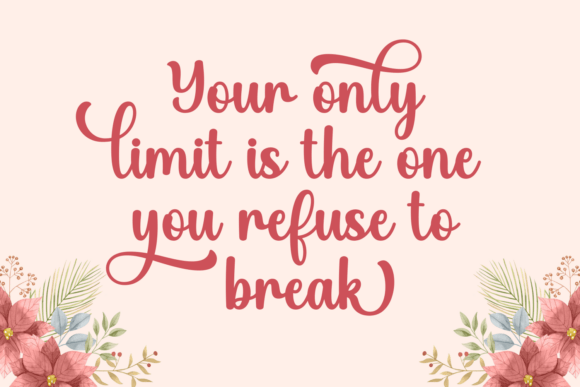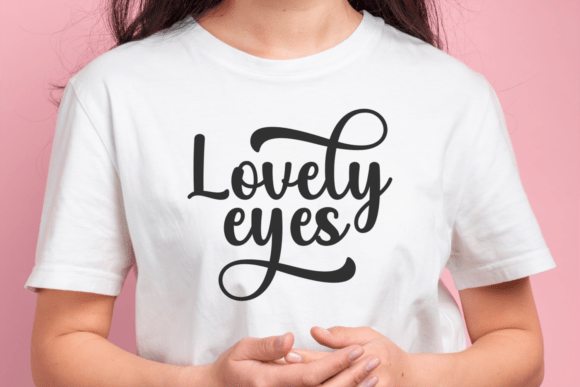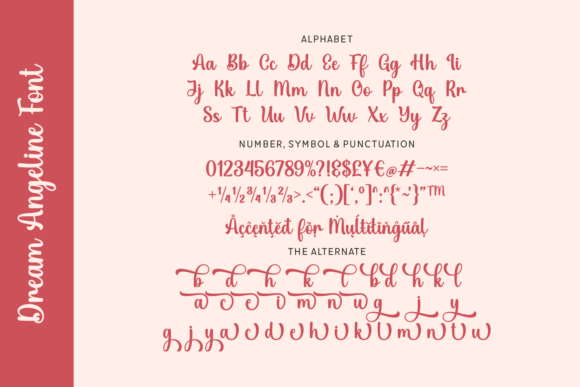
Dream Angeline Font: Elevate Your Designs with Whimsical Elegance
Are you a designer or crafter looking for a font that embodies the perfect blend of playfulness and sophistication? Look no further than the Dream Angeline Font. This enchanting script font is designed to add a touch of magic to your creations, making it an ideal choice for a variety of projects, from wedding stationery to romantic quotes and festive invitations.
The Charm of Dream Angeline
Dream Angeline is a whimsical script font that boasts delicate swashes, carefully crafted to infuse your designs with a playful elegance. The font’s unique charm lies in its ability to balance sophistication with a carefree, artistic vibe, making it perfect for designers and crafters who want to add a personal touch to their work.
Key Features of Dream Angeline Font
- Whimsical Script Font: Dream Angeline features a beautiful, flowing script that adds a touch of whimsy to any design.
- Delicate Swashes: The font’s delicate swashes add a playful elegance, making it perfect for designs that require a touch of sophistication.
- Versatile: Dream Angeline is designed to be versatile, making it suitable for a wide range of projects, from wedding stationery to romantic quotes and festive invitations.
Perfect for Wedding Stationery and Romantic Designs
Dream Angeline Font is an excellent choice for wedding stationery, including invitations, save-the-date cards, and thank-you notes. The font’s elegant and playful design creates a romantic atmosphere, perfect for couples who want to make their special day even more memorable. Additionally, the font’s whimsical charm makes it ideal for romantic quotes, love letters, and other designs that require a touch of personality.
Festive Invitations and More
Beyond wedding stationery and romantic designs, Dream Angeline Font is also perfect for festive invitations, including birthday parties, baby showers, and holiday celebrations. The font’s playful elegance adds a touch of magic to any design, making it an excellent choice for crafters and designers who want to create unique and memorable invitations.
Tips for Using Dream Angeline Font
- Pair with Other Fonts: Experiment with pairing Dream Angeline with other fonts to create a unique and visually appealing design.
- Use for Headings and Titles: The font’s whimsical charm makes it perfect for headings and titles, adding a touch of personality to your designs.
- Add Swashes and Flourishes: Take advantage of the font’s delicate swashes and flourishes to add a touch of elegance to your designs.
Dream Angeline Font is a versatile and enchanting script font that is sure to elevate your designs with its whimsical elegance. Whether you’re a designer or crafter, this font is perfect for a wide range of projects, from wedding stationery to romantic quotes and festive invitations. With its delicate swashes and playful charm, Dream Angeline Font is an excellent addition to any design toolkit.